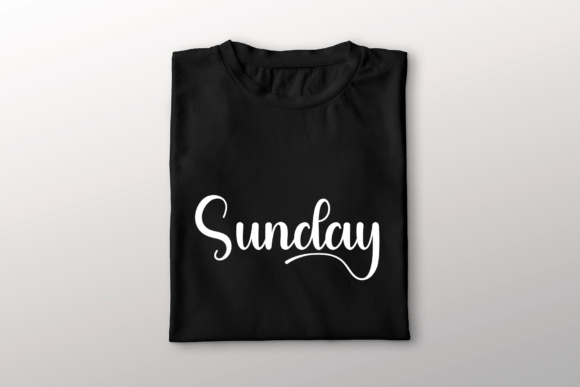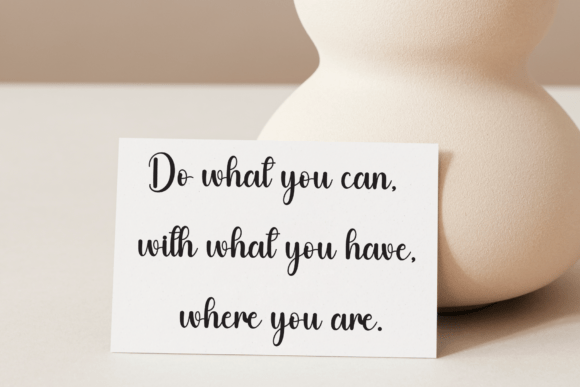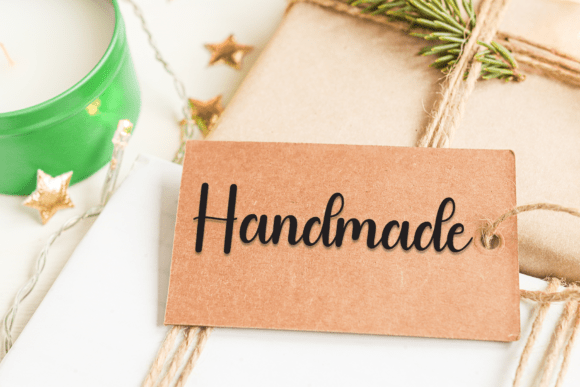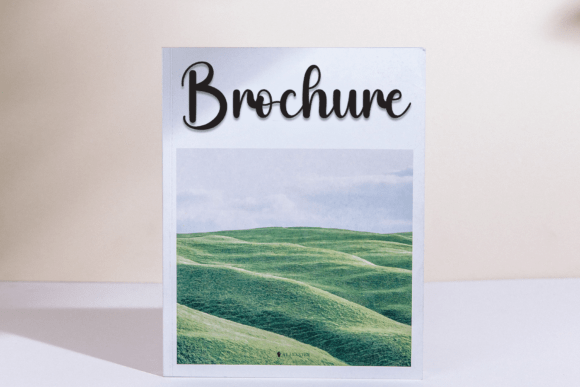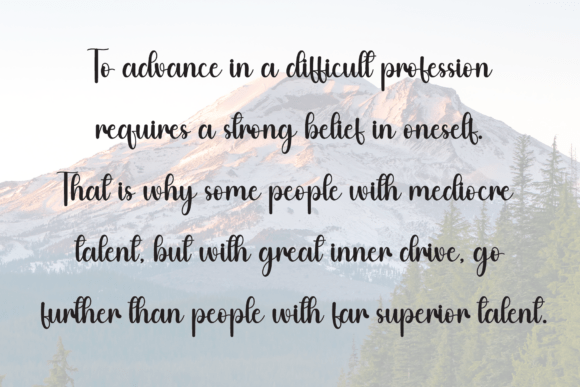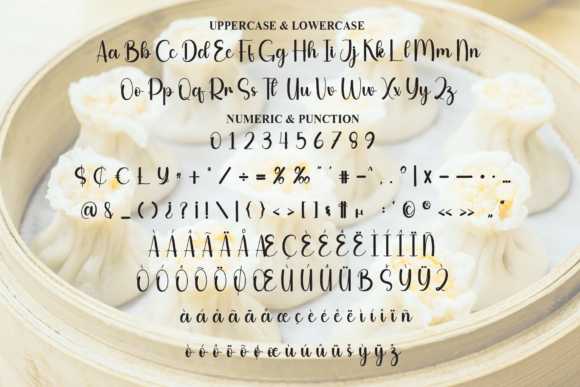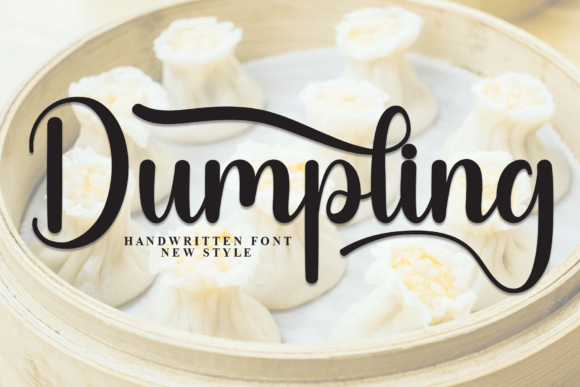
Dumpling Font: Elevate Your Designs with Elegance and Playfulness
Are you looking for a font that can add a touch of sophistication and whimsy to your designs? Look no further than the Dumpling Font. This stylish handwritten script font is designed to capture the essence of elegance and playfulness in every stroke, making it perfect for a wide range of creative projects.
The Characteristics of Dumpling Font
Dumpling Font is a beautifully crafted handwritten script font that boasts flowing curves and a natural rhythm. Its unique design brings a personal, charming touch to any project, making it ideal for invitations, branding, social media, and more. The font’s graceful design exudes warmth, sophistication, and creativity, allowing designers to add a touch of personality to their work.
Whether you’re a designer, crafter, or DIY enthusiast, Dumpling Font is a versatile font that can be used for a wide range of projects. Here are some ideas to get you started:
- Invitations: Add a touch of elegance and sophistication to your wedding invitations, birthday party invites, or baby shower announcements.
- Branding: Use Dumpling Font to create a unique and memorable brand identity for your business, including logos, packaging, and marketing materials.
- Social Media: Elevate your social media presence with eye-catching graphics, quotes, and posts that showcase your personality and style.
- Crafting: Use Dumpling Font to create beautiful and unique craft projects, such as handmade cards, gift tags, and scrapbooking pages.
Why Choose Dumpling Font?
So why choose Dumpling Font over other fonts? Here are just a few reasons:
- Unique and Versatile: Dumpling Font is a one-of-a-kind font that can be used for a wide range of projects, from formal to informal.
- Elegant and Playful: The font’s elegant design and playful rhythm make it perfect for adding a touch of sophistication and whimsy to your designs.
- Easy to Read: Dumpling Font is clear and easy to read, making it perfect for body text, headings, and titles.
- High-Quality: The font is carefully crafted to ensure high-quality and crisp rendering, even at small sizes.
Tips for Using Dumpling Font
Here are some tips for getting the most out of Dumpling Font:
- Experiment with Sizes: Try using Dumpling Font in different sizes to create visual interest and hierarchy in your designs.
- Mix and Match: Combine Dumpling Font with other fonts to create a unique and eye-catching design.
- Play with Colors: Use Dumpling Font with a range of colors to add personality and style to your designs.
- Keep it Simple: Don’t be afraid to keep your design simple and elegant – Dumpling Font is perfect for minimalist designs.
Dumpling Font is a beautiful and versatile handwritten script font that can add a touch of elegance and playfulness to any design project. With its flowing curves, natural rhythm, and charming design, it’s perfect for designers, crafters, and DIY enthusiasts looking to elevate their designs. Whether you’re creating invitations, branding, social media graphics, or craft projects, Dumpling Font is sure to bring warmth, sophistication, and creativity to your work.
Get Ready to Elevate Your Designs with Dumpling Font